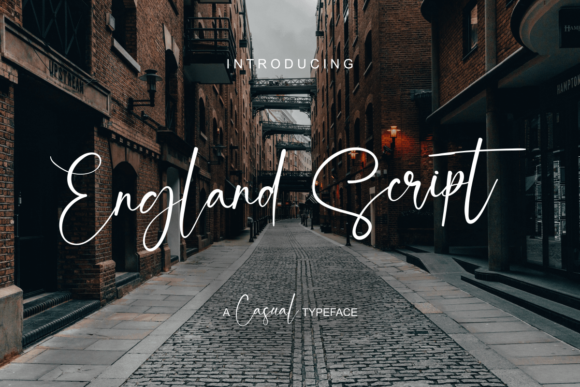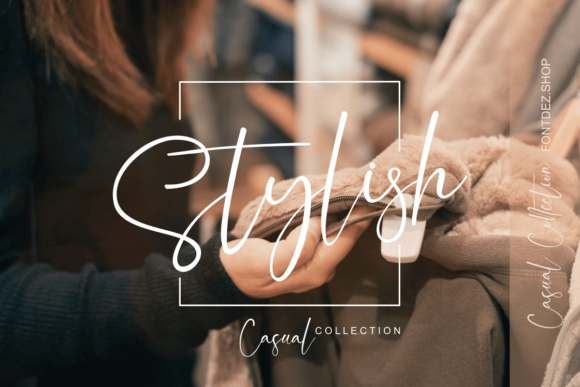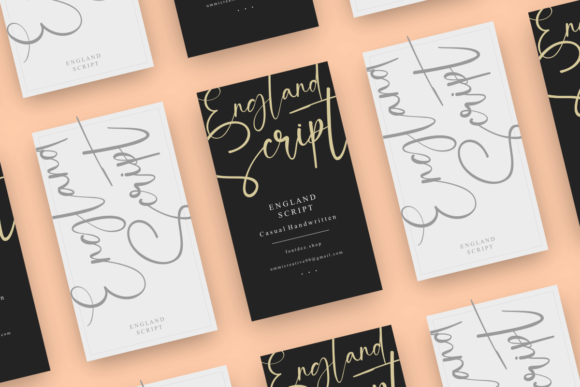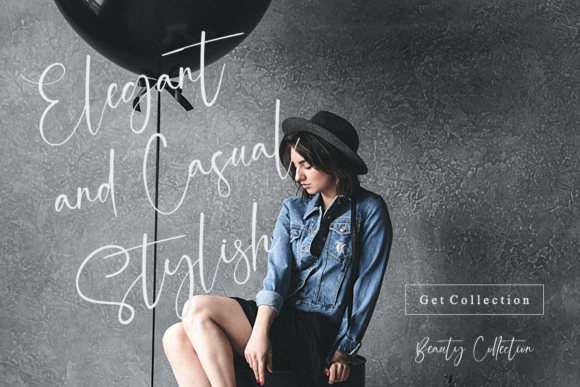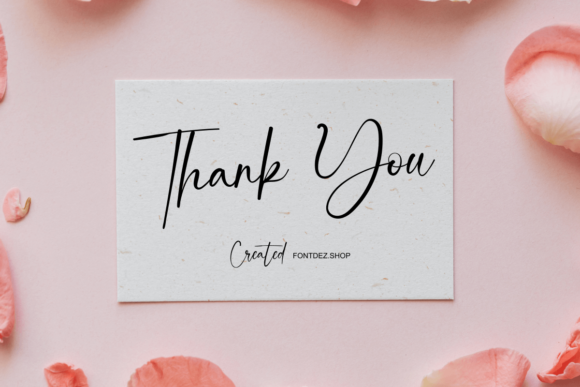
About England Font
England is an unique handwritten font. Whether you’re using it for crafting, digital designing, presentations, or greeting card making, it’s perfect!